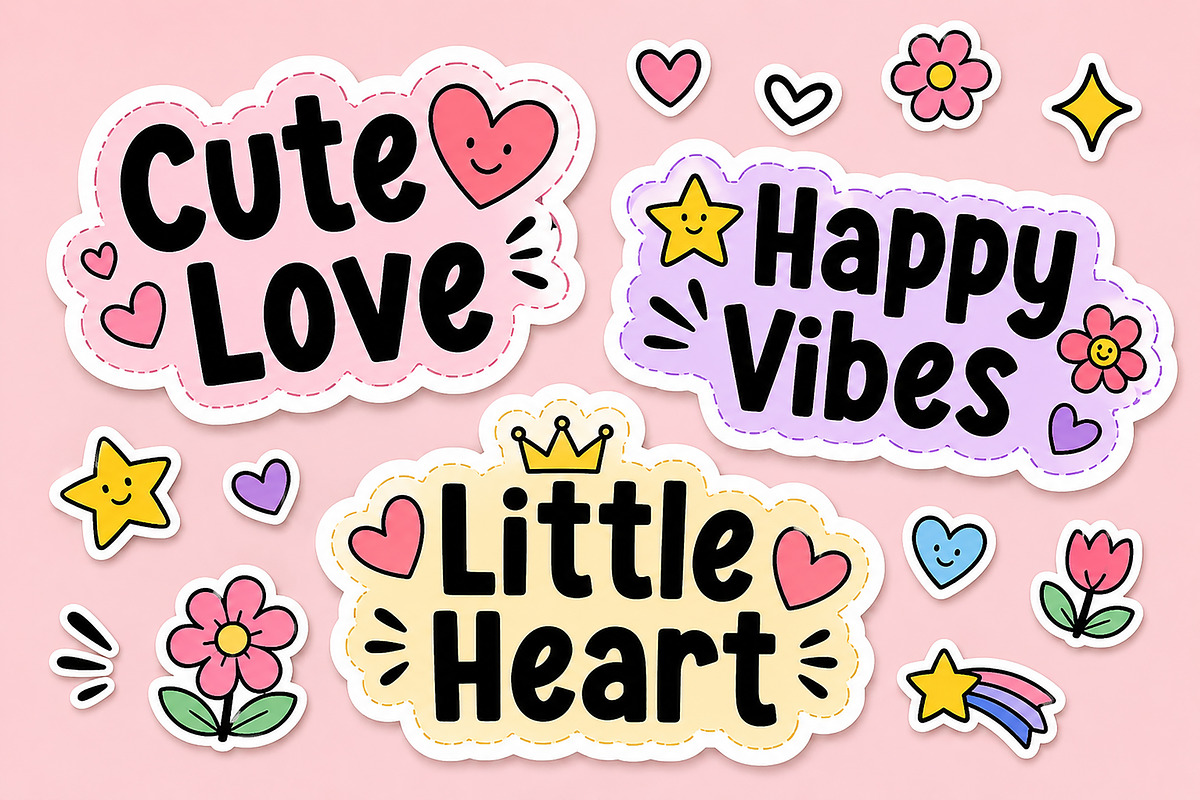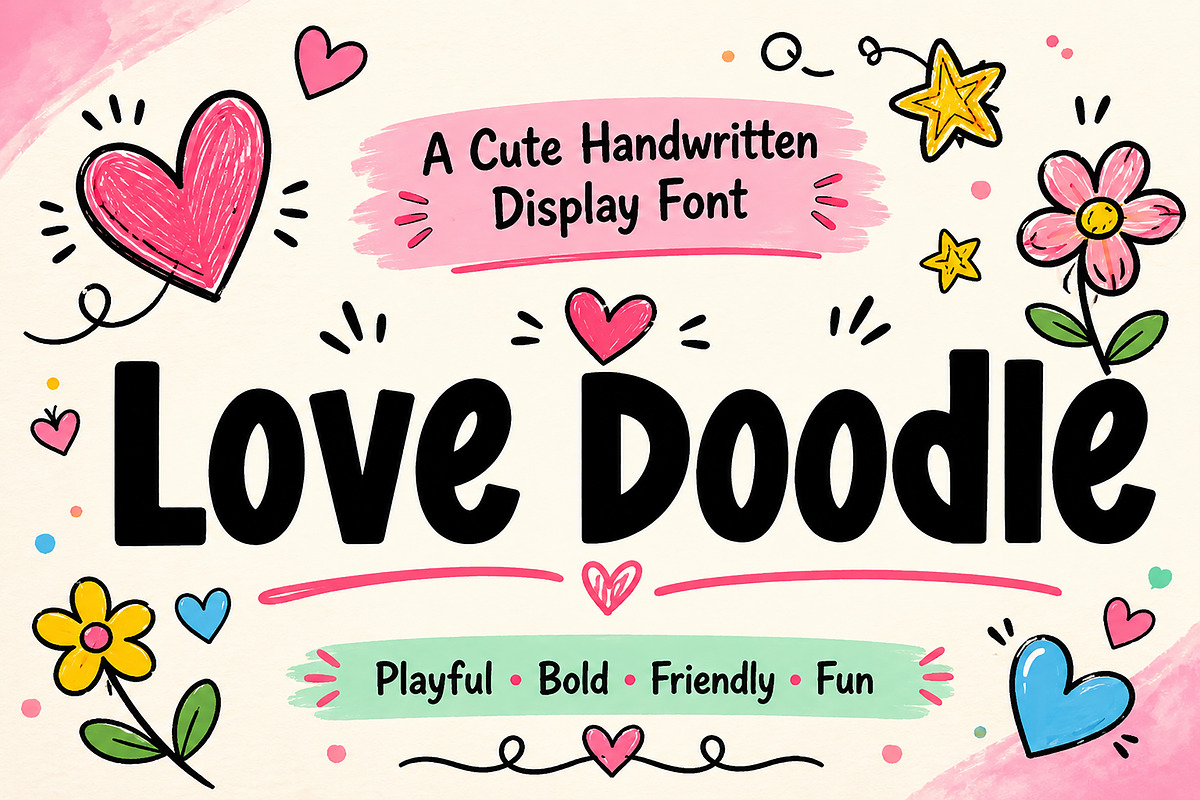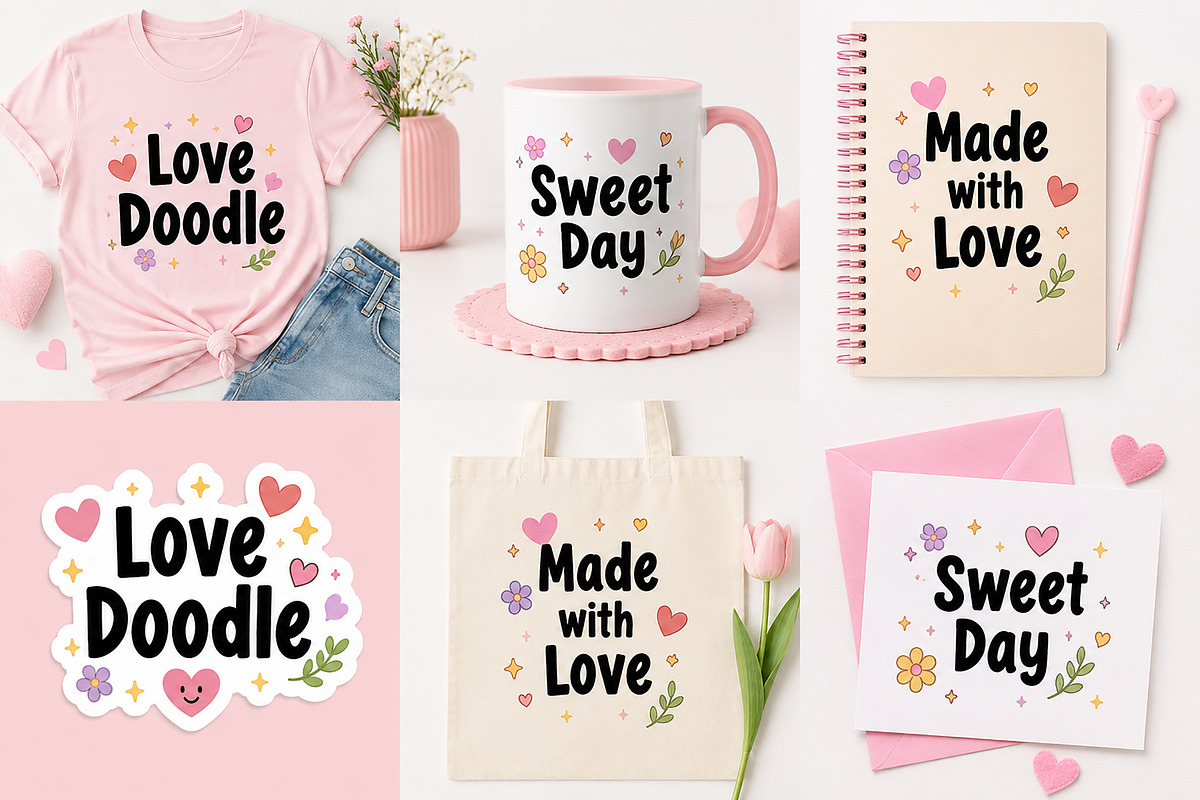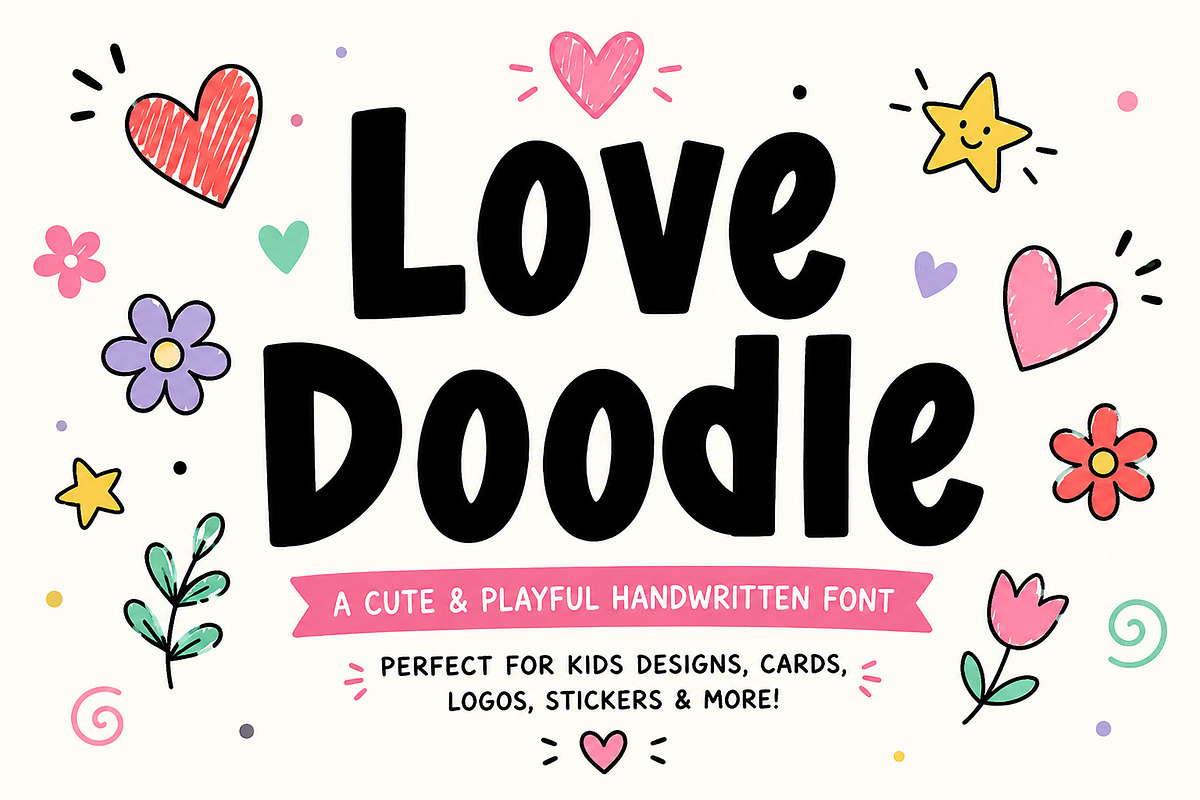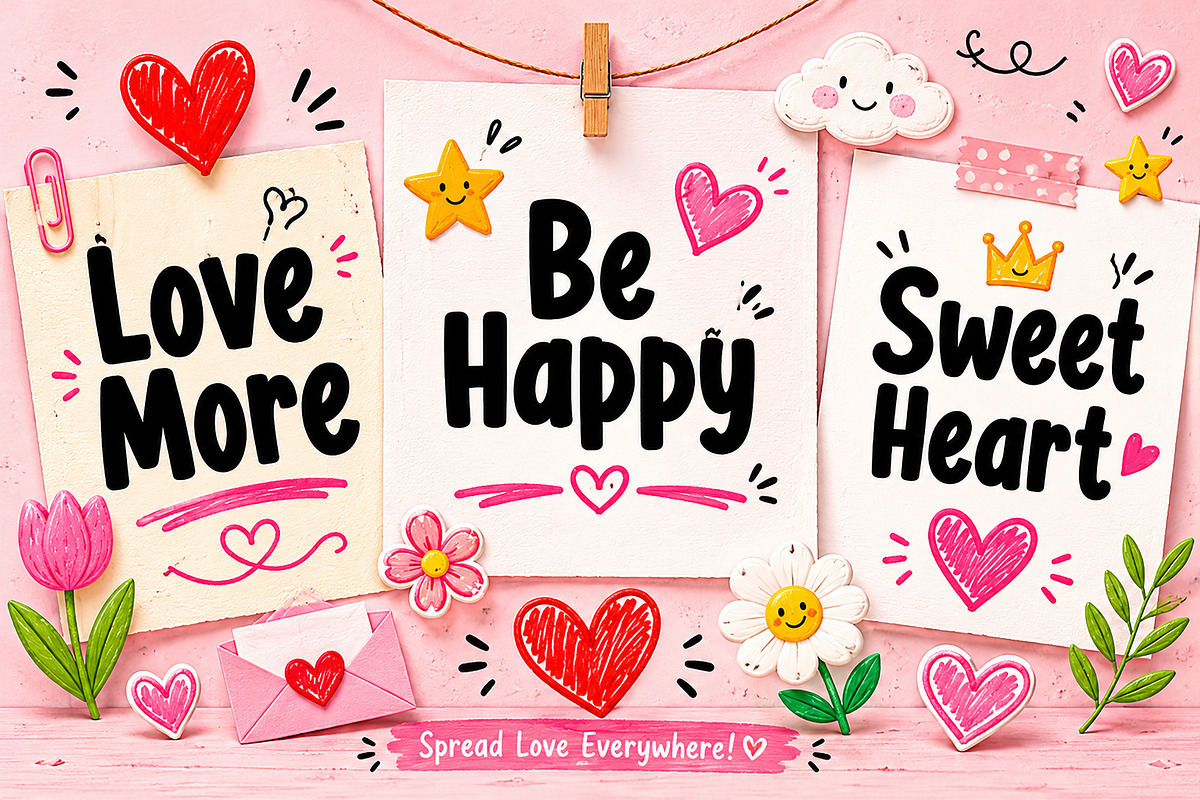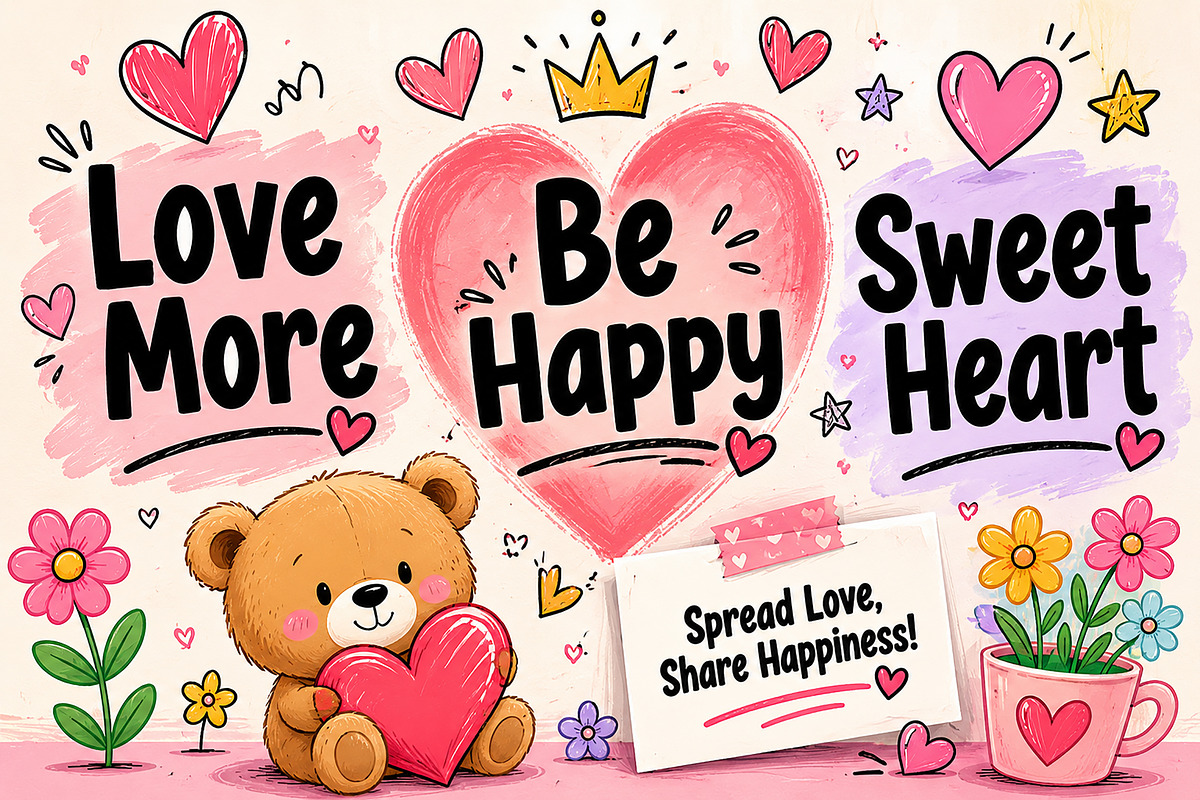
Love Doodle
Love Doodle – Cute Handwritten Display Font
Love Doodle is a fun, playful, and charming handwritten display font inspired by cute doodles, happy moments, and creative imagination. With its bold rounded shapes and hand-drawn personality, this font is perfect for kids' projects, greeting cards, stickers, Cricut crafts, Valentine's Day designs, social media graphics, classroom materials, branding, and much more.
Whether you're creating adorable stickers, playful logos, colorful posters, or DIY craft projects, Love Doodle adds a cheerful and friendly touch to every design.
• Kids Branding
• Greeting Cards
• Valentine's Day Projects
• Stickers & Cricut Crafts
• Sublimation Designs
• T-Shirts & Apparel
• Social Media Posts
• Packaging Design
• Nursery Decor
• Book Covers
• Party Invitations
• DIY Craft Projects
• Printable Quotes
• Classroom Resources
• Fun Logos & Branding
Bring happiness, creativity, and playful charm to your designs with Love Doodle!